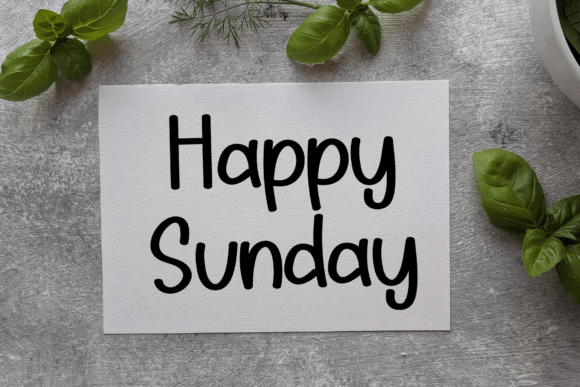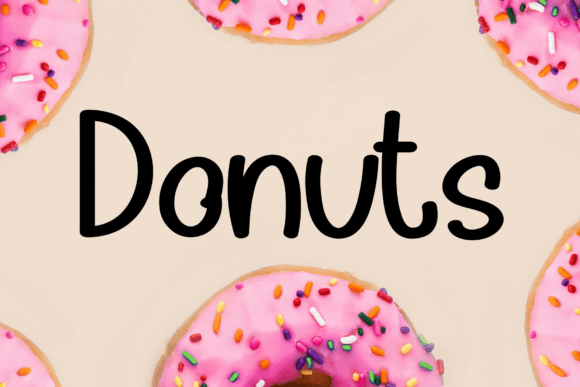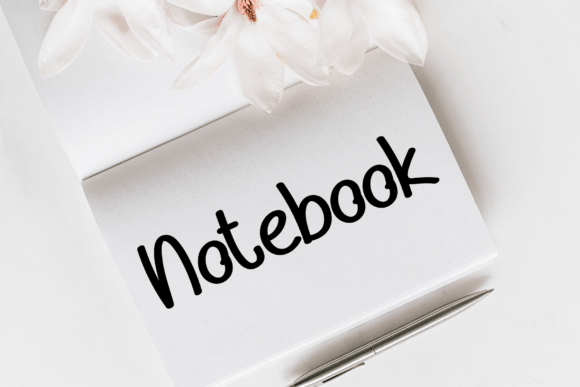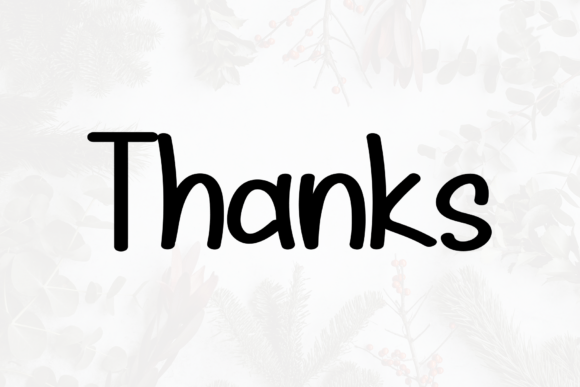
Introduction to History January Font
As a designer, there’s nothing quite like the thrill of stumbling upon the perfect font for a creative project. It’s that moment when the words just seem to flow effortlessly, and the entire design comes together in perfect harmony. For many, that perfect font is History January Font – a charming handwritten font that exudes a sense of heartfelt perfection.
With its smooth strokes and organic lines, History January Font is the epitome of high-quality design resources. Whether you’re working on a branding project, crafting the perfect invitation, or creating social media graphics, this font is sure to bring a touch of elegance and sophistication to your work. And the best part? It’s available for free download, making it an invaluable resource for designers of all levels.
But what makes History January Font truly special is its versatility. Whether you’re working with a transparent background or a bold, eye-catching design, this font is sure to shine. Its unique character and charm make it a valuable addition to any designer’s toolkit, and its free download status means that you can experiment with it to your heart’s content.
Key Features of History January Font
- High-quality, unique design ideal for creative projects and design resources.
- Designed to be highly legible at various font sizes and resolutions, making it suitable for both print and digital applications.
- Part of a larger collection of historical-themed fonts, offering designers a wealth of creative possibilities.
Honest Review: History January Font
I recently stumbled upon the History January Font, and I’m excited to share my thoughts on this design resource. As a designer, I’m always on the lookout for high-quality fonts that can elevate my creative projects.
Here are some of the things that work well for me:
- ✨ High-quality design that’s perfect for historical or vintage-themed projects
While the History January Font is a solid choice, there are a few limitations to consider:
- ⚠️ Limited font styles and variations
- ⚠️ May not be suitable for modern or minimalist designs
Overall, I’m impressed with the History January Font. It’s a great addition to any designer’s toolkit, and I can see it being used in a variety of creative projects, from historical documentaries to vintage-inspired advertisements.
Tips for Getting the Most Out of the History January Font
To get the most out of the History January Font, use it with a transparent background to create a clean and elegant design. You can also pair it with other fonts to create a unique and creative look.
Common Use Cases for the History January Font
The History January Font is commonly used in design projects that require a high-quality, elegant font with a transparent background. Some common use cases include creating invitations, brochures, and business cards.